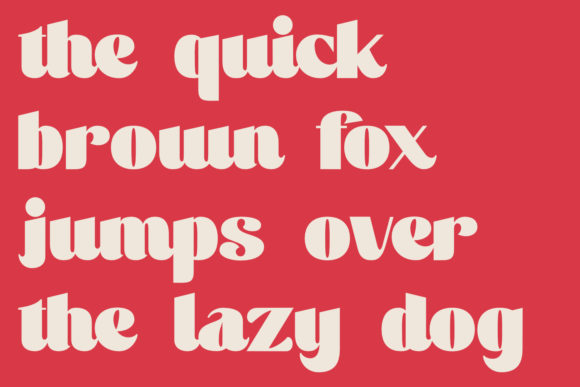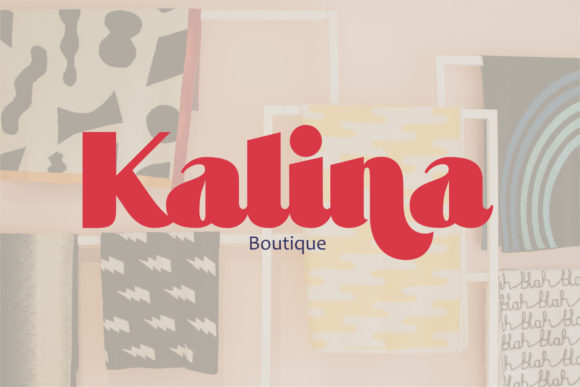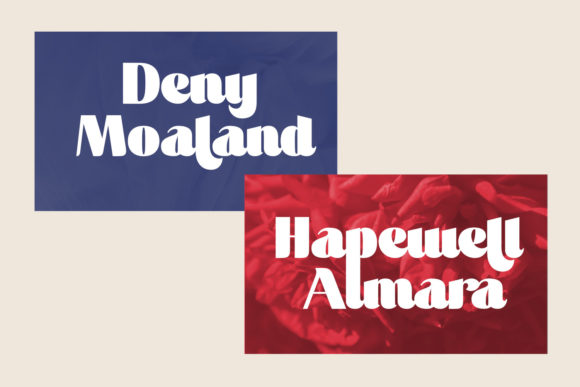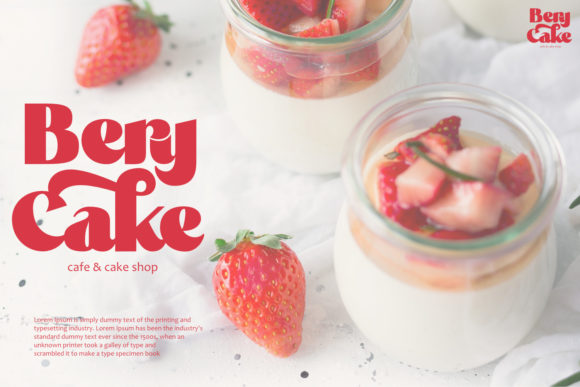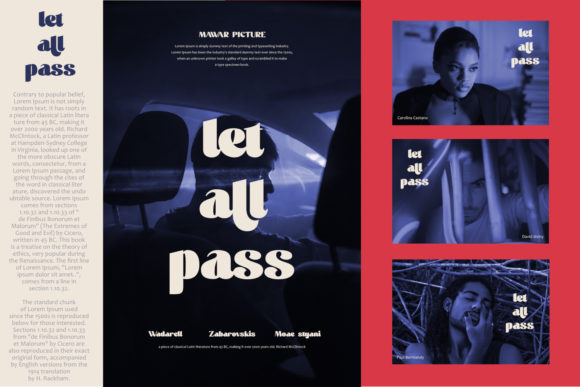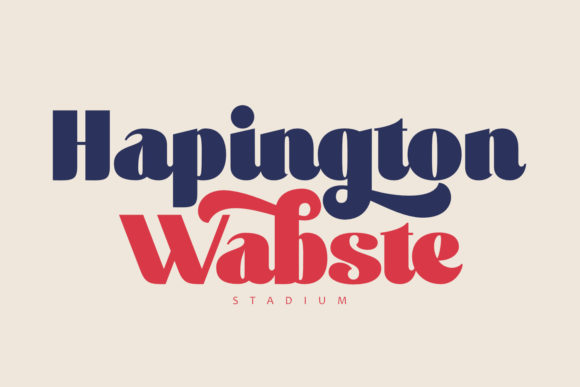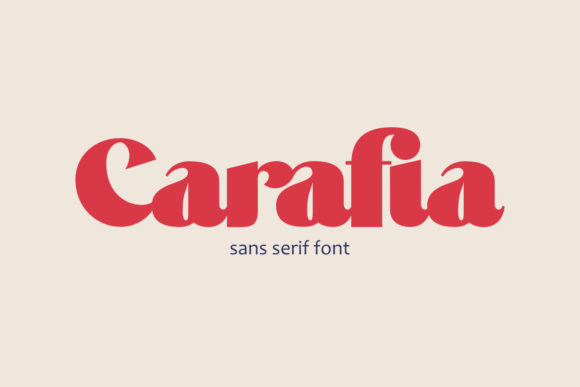
Introducing Carifia Font: The Ultimate Choice for Fashion Branding and Editorial Designs
In the world of typography, fonts play a crucial role in making or breaking the visual appeal of a design. For designers and crafters, finding the perfect font that combines readability, boldness, and style can be a daunting task. However, if you’re looking for a modern display font that ticks all these boxes, look no further than Carifia Font. In this article, we’ll dive into the features and benefits of Carifia Font, and explore why it’s the perfect choice for fashion branding and editorial designs.
What is Carifia Font?
Carifia Font is a modern display font that boasts smooth curves, making it a stylish and readable addition to any design project. Its bold and eye-catching appearance makes it perfect for fashion branding, editorial designs, and any other project that requires a font with a strong visual presence. Whether you’re designing a logo, brochure, or social media post, Carifia Font is sure to make a statement.
Key Features of Carifia Font
So, what sets Carifia Font apart from other fonts? Here are some of its key features:
• Readability: Despite its bold appearance, Carifia Font is remarkably readable, making it perfect for use in a variety of design projects.
• Smooth Curves: The font’s smooth curves give it a sleek and modern appearance that’s sure to turn heads.
• Bold and Stylish: Carifia Font is the perfect combination of bold and stylish, making it perfect for fashion branding and editorial designs.
• Versatility: Whether you’re designing a logo, brochure, or social media post, Carifia Font is versatile enough to be used in a variety of design projects.
Why Choose Carifia Font for Fashion Branding?
Fashion branding requires a font that’s bold, stylish, and eye-catching. Carifia Font ticks all these boxes, making it the perfect choice for fashion brands looking to make a statement. Here are some reasons why:
• Creates a Strong Visual Identity: Carifia Font’s bold and stylish appearance creates a strong visual identity that’s sure to set your fashion brand apart from the competition.
• Perfect for Logos and Headings: The font’s bold appearance makes it perfect for use in logos and headings, where you want to grab the attention of your audience.
• Enhances Brand Recognition: By using Carifia Font consistently across your branding materials, you can enhance brand recognition and create a cohesive visual identity.
Why Choose Carifia Font for Editorial Designs?
Editorial designs require a font that’s stylish, readable, and attention-grabbing. Carifia Font meets all these requirements, making it a great choice for editorial designs. Here are some reasons why:
• Grabs Attention: The font’s bold appearance grabs the attention of readers, making it perfect for use in headings and titles.
• Enhances Readability: Despite its bold appearance, Carifia Font is remarkably readable, making it perfect for use in editorial designs where readability is crucial.
• Adds Visual Interest: The font’s smooth curves and bold appearance add visual interest to editorial designs, making them more engaging and visually appealing.
How to Use Carifia Font in Your Design Projects
Using Carifia Font in your design projects is easy. Here are some tips to get you started:
• Pair it with Other Fonts: Carifia Font works well when paired with other fonts. Experiment with different font combinations to create a unique visual identity.
• Use it Consistently: Use Carifia Font consistently across your design projects to create a cohesive visual identity.
• Experiment with Different Sizes and Colors: Experiment with different sizes and colors to create visual interest and add emphasis to your design.
In conclusion, Carifia Font is a modern display font that’s perfect for fashion branding and editorial designs. Its bold and stylish appearance, combined with its readability and versatility, make it a great choice for designers and crafters looking to add a touch of elegance to their design projects. So, add Carifia Font to your projects with confidence, and you’ll love the results!